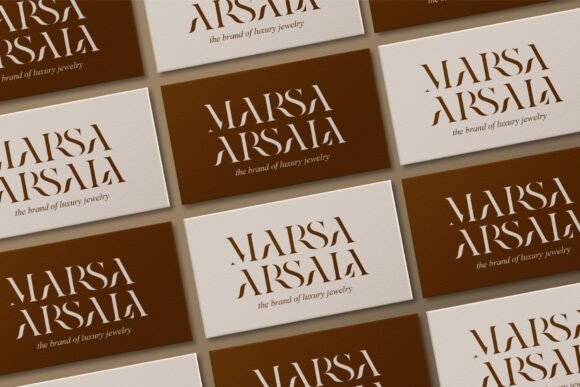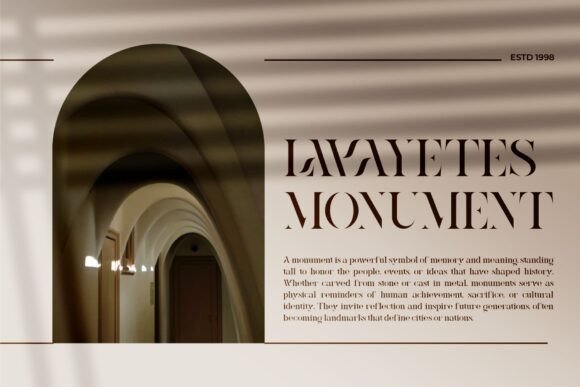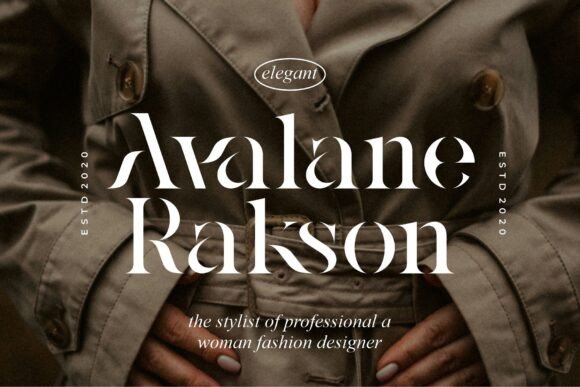
Introduction to Kasero Font
Have you ever stared at a blank canvas, waiting for that perfect spark to ignite your creativity? For designers, moments like these are a constant companion. The blank page can be both exhilarating and intimidating, but with the right tools, the possibilities become endless. That’s where the Kasero Font comes in – a modern and classy font type that’s sure to elevate any branding or logo design project.
As a design resource, Kasero Font is a high-quality addition to any creative project. Its smooth, serif design exudes sophistication and style, making it perfect for a wide range of applications, from invitation card designs to business cards. Whether you’re working on a free download or a paid project, Kasero Font is a valuable asset that can help take your designs to the next level.
With its stylish ligatures and transparent background, Kasero Font is the perfect partner for designers who demand the best. In this article, we’ll delve into the world of Kasero Font and explore its many uses and benefits.
Kasero Font
- Features a transparent background, allowing for flexibility in design composition.
- Unique characteristics: A modern, clean design aesthetic with a unique set of glyphs and symbols.
Honest Review: Kasero Font
I recently came across the Kasero Font, and I must say it’s a great addition to any designer’s library. The font is free to download, which is always a plus, and it comes with a transparent background, making it easy to use in various design projects.
Here are some of the things that work well: ✨
- High-quality design: The font has a unique and modern feel to it, making it perfect for creative projects.
- Wide range of applications: The Kasero Font can be used for both digital and print design, including logos, brochures, and websites.
However, there are a few limitations: ⚠️
- Limited character set: The font only includes a basic set of characters, which may not be suitable for languages that require a wider range of characters.
- No bold or italic versions: This can make it difficult to create emphasis or highlight text in designs.
Overall, I’m impressed with the Kasero Font. It’s a great resource for designers who need a high-quality, modern font for their creative projects. With a little creativity, the limitations can be worked around, and the font can be used to create stunning designs.
Tips for Getting the Most Out of Kasero Font
To get the most out of Kasero Font, experiment with different font sizes, colors, and combinations. You can also use the transparent background to create visually striking graphics and illustrations.
Common Use Cases for Kasero Font
Kasero Font is ideal for creative projects such as graphic design, digital art, and typography. It’s also a great resource for designing logos, branding materials, and marketing materials.